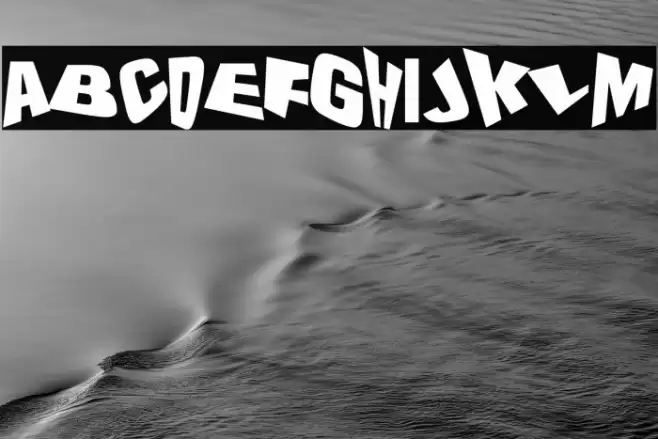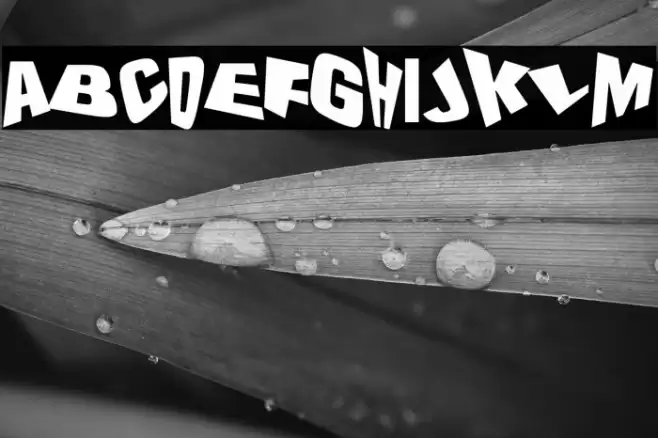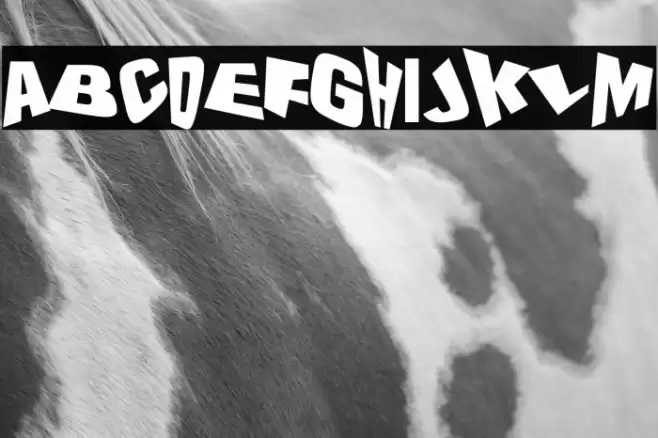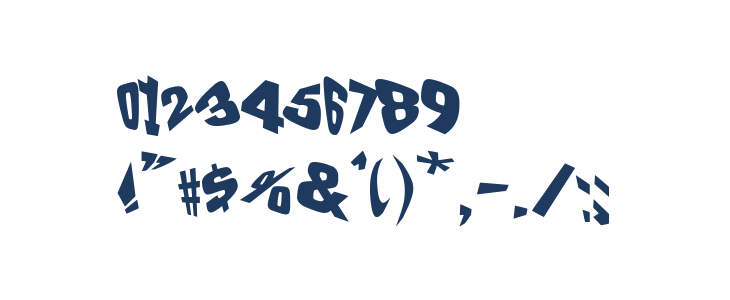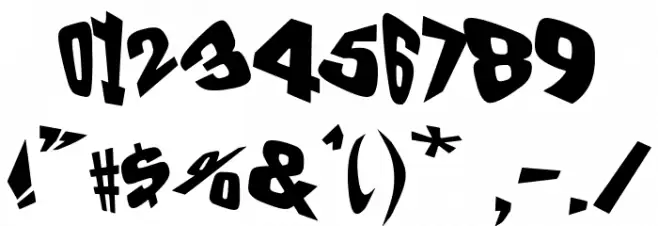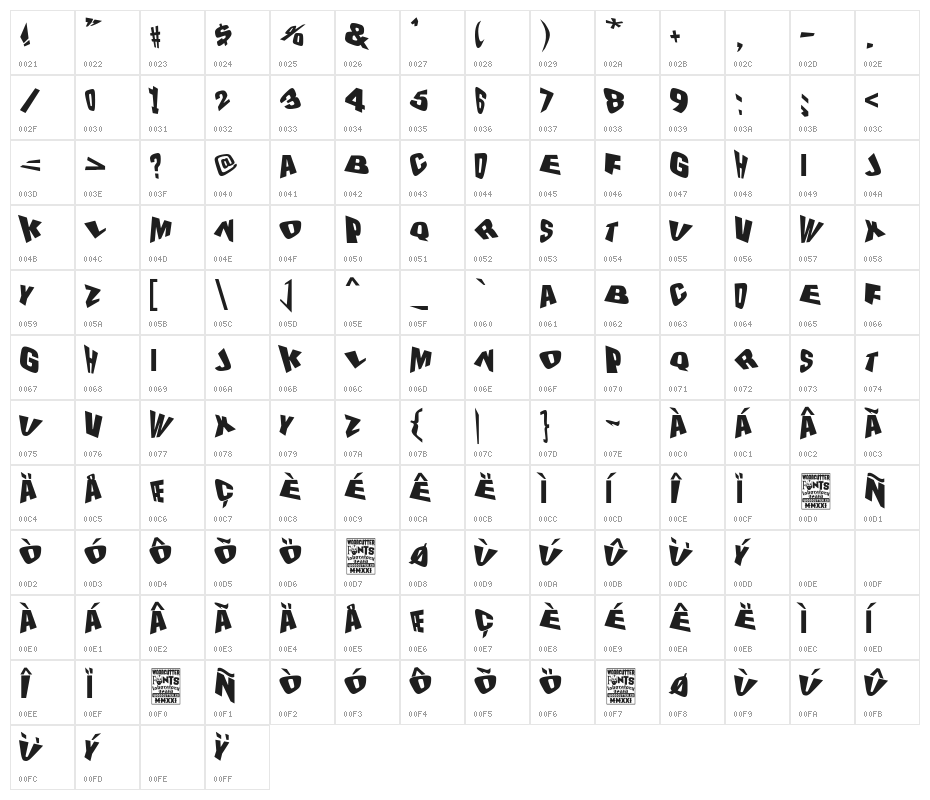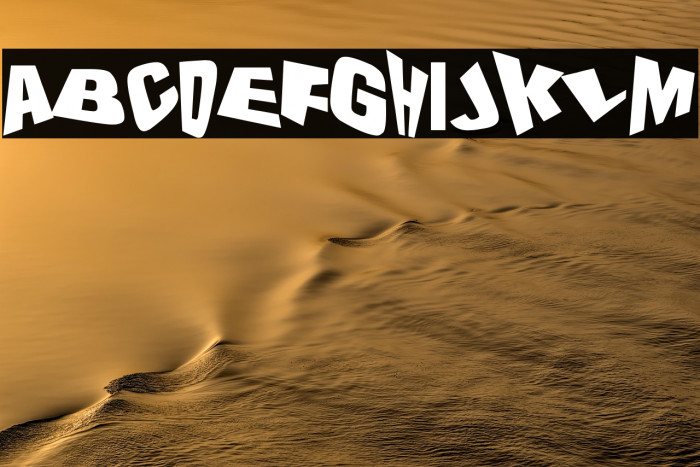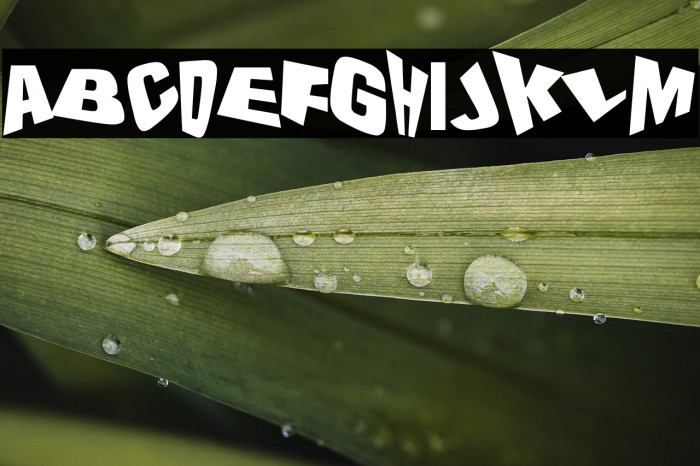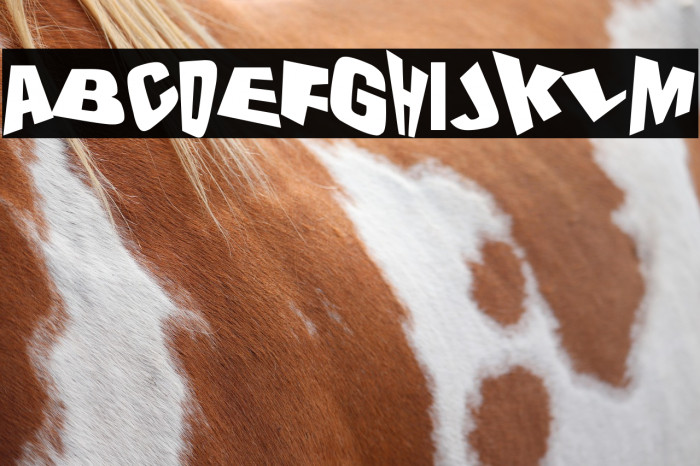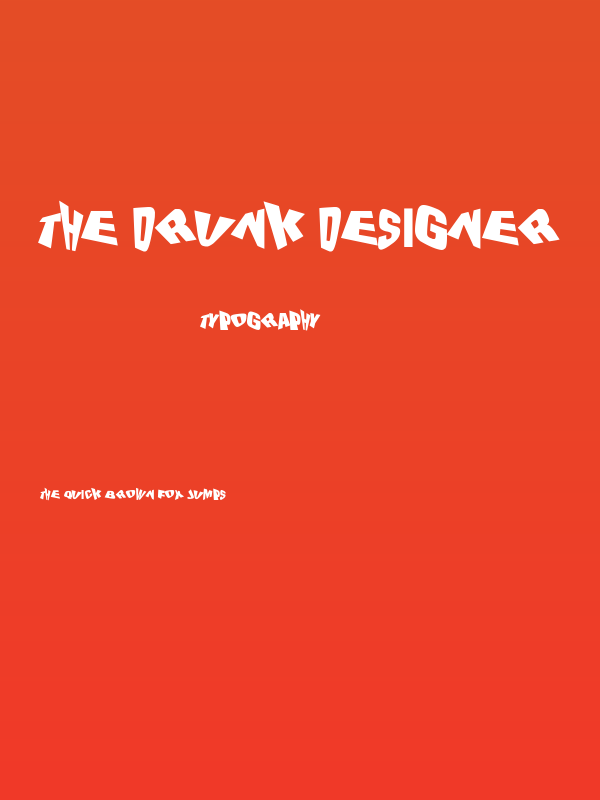
The Drunk Designer Font
The Drunk Designer Description
This font features a playful and chaotic design, with each character appearing to be slightly off-kilter or askew, giving it a whimsical and energetic feel. The letters are bold and irregular, with varying angles and sizes that create a sense of movement and unpredictability. This style is reminiscent of hand-drawn or cut-out letters, adding a unique and artistic touch. The font includes a full set of uppercase and lowercase letters, numbers, and a variety of special characters, all maintaining the same quirky and dynamic aesthetic.
A playful, chaotic font with bold, irregular characters and a whimsical feel from Distorted Eroded fonts.
- Font: The Drunk Designer
- Proposed Projects: Ideal for creative projects such as children's books, playful branding, party invitations, or any design that requires a fun and energetic typeface.
- Overall Style: Playful, Artistic
- Use Case: Headlines, Posters, Branding